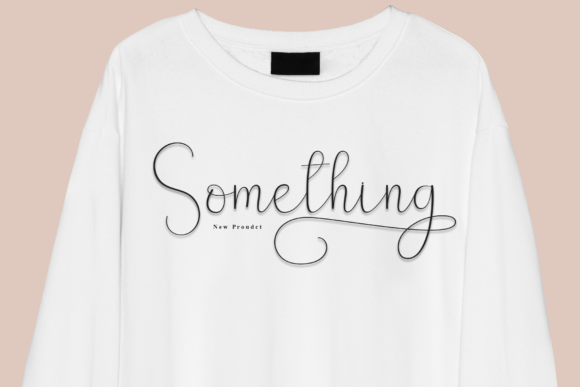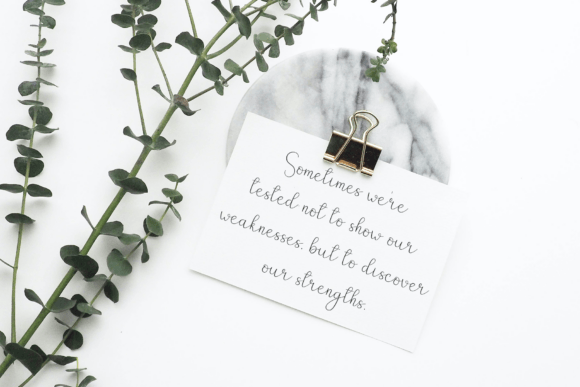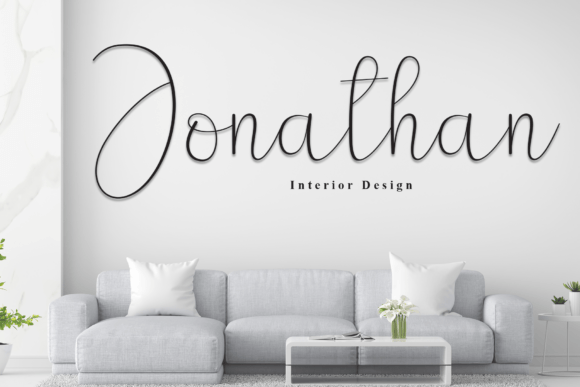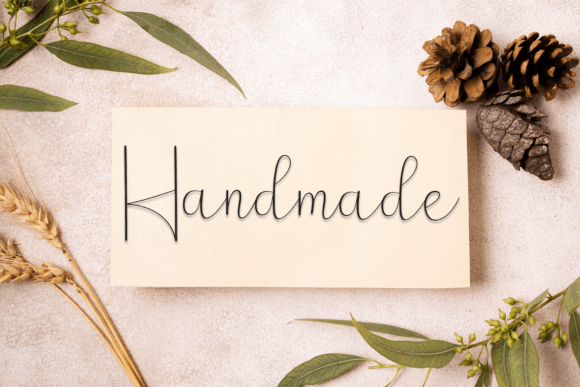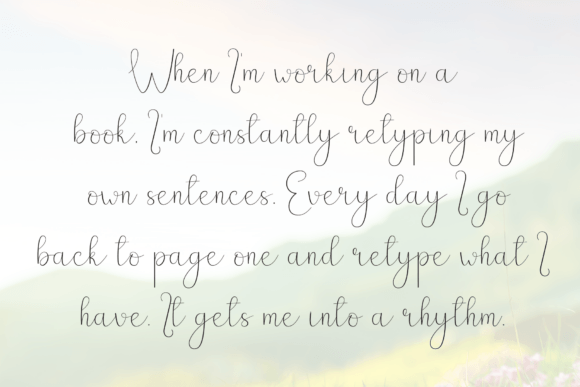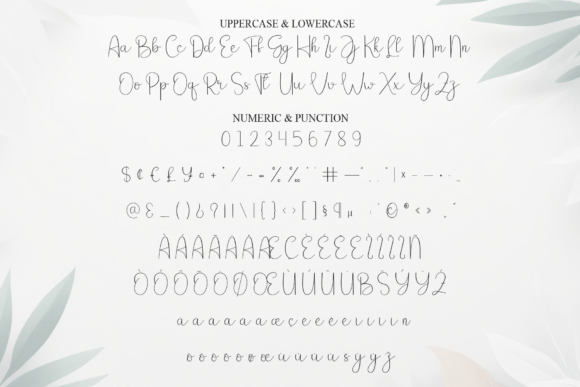
Introducing Flurry Font: The Whimsical Handwritten Display Font
Are you tired of using the same old fonts for your designs? Look no further! We’re excited to introduce Flurry Font, a charming and whimsical handwritten display font that’s sure to add a touch of joyous charm to your creations. With its unique blend of grace and playfulness, Flurry Font is perfect for designers and crafters looking to add a dash of fun to their work.
The Allure of Flurry Font
Flurry Font is a beautifully crafted font that exudes a sense of sweetness and charm. Its handwritten style gives it a personal and intimate feel, making it perfect for projects that require a touch of warmth and personality. Whether you’re designing wedding invitations, greeting cards, or social media graphics, Flurry Font is sure to make your designs stand out.
Key Features of Flurry Font
- Whimsical Handwritten Style: Flurry Font features a unique and playful handwritten style that’s sure to capture the attention of your audience.
- Perfect for Creative Projects: Whether you’re a designer, crafter, or DIY enthusiast, Flurry Font is perfect for a wide range of creative projects, from wedding invitations to social media graphics.
- Elegant yet Playful: Flurry Font strikes the perfect balance between elegance and playfulness, making it suitable for both formal and informal designs.
- Easy to Read: Despite its playful style, Flurry Font is easy to read and understand, making it perfect for designs that require a clear and concise message.
Use Cases for Flurry Font
Flurry Font is a versatile font that can be used for a wide range of design projects. Here are some use cases to get you started:
- Wedding Invitations: Add a touch of romance and whimsy to your wedding invitations with Flurry Font.
- Greeting Cards: Create enchanting greeting cards for birthdays, holidays, and special occasions with Flurry Font.
- Social Media Graphics: Use Flurry Font to create eye-catching social media graphics that showcase your personality and style.
- Branding and Packaging: Add a touch of playfulness to your branding and packaging with Flurry Font.
Tips for Using Flurry Font
Here are some tips to help you get the most out of Flurry Font:
- Pair with Other Fonts: Experiment with pairing Flurry Font with other fonts to create a unique and visually appealing design.
- Use for Headlines and Titles: Use Flurry Font for headlines and titles to add a touch of whimsy and personality to your designs.
- Experiment with Colors: Try out different colors and color combinations to add depth and interest to your designs.